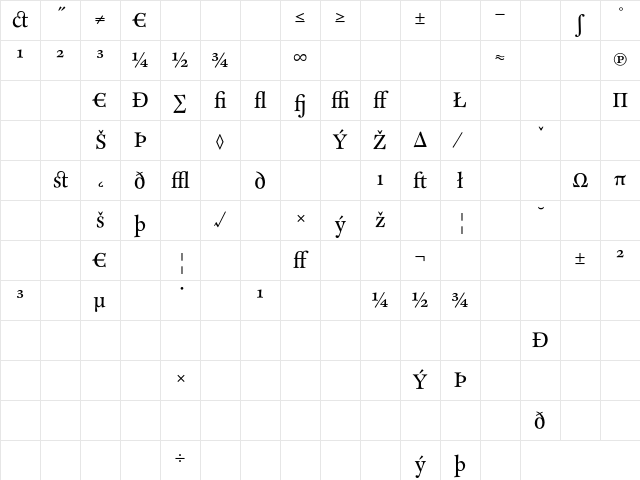
Complete CliffordEighteen RomanExpert glyph index. Displaying only characters natively supported by CliffordEighteen RomanExpert font.
CliffordEighteen is a composed and adaptable typeface that performs quietly and consistently across a wide range of design contexts.